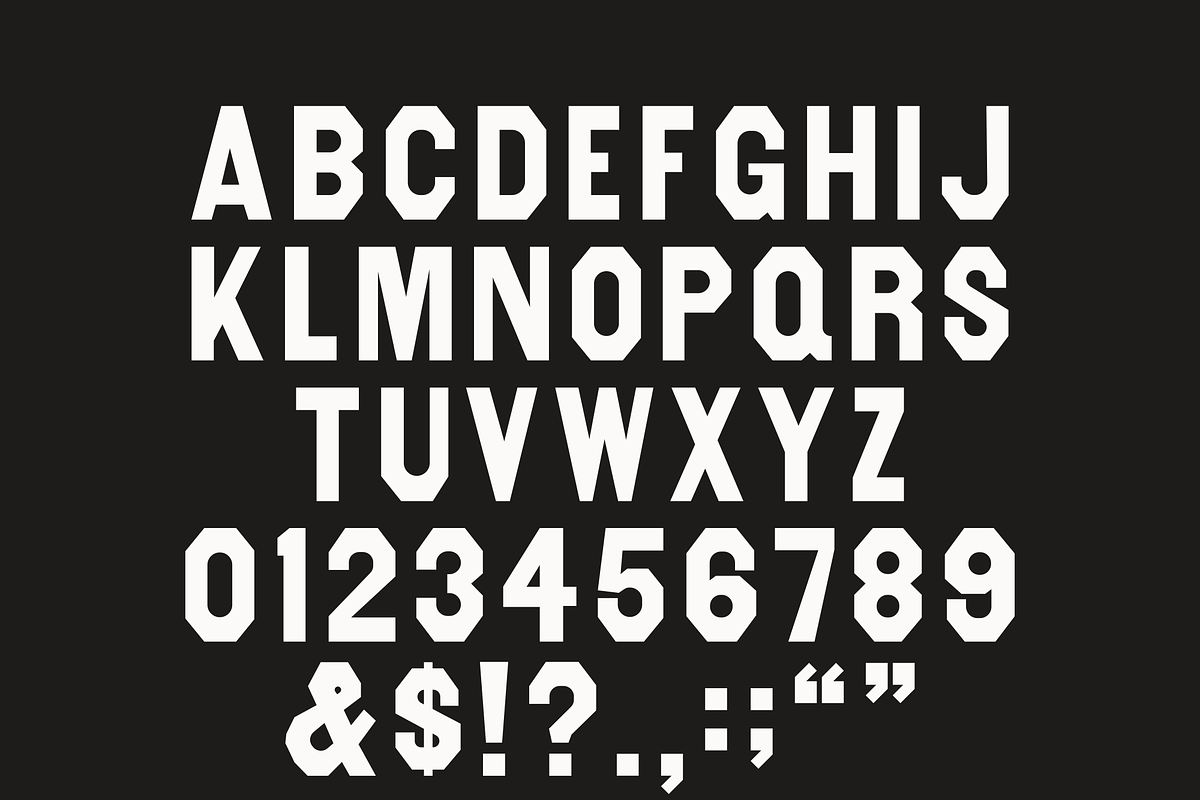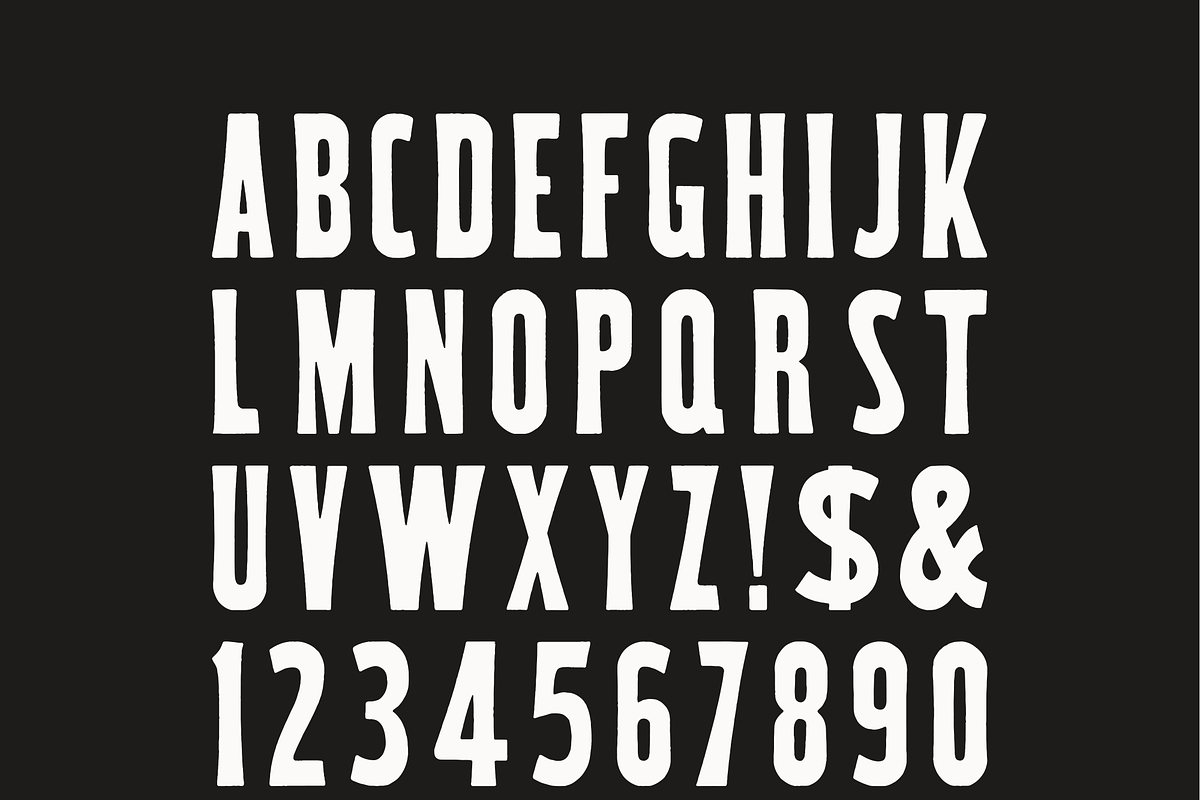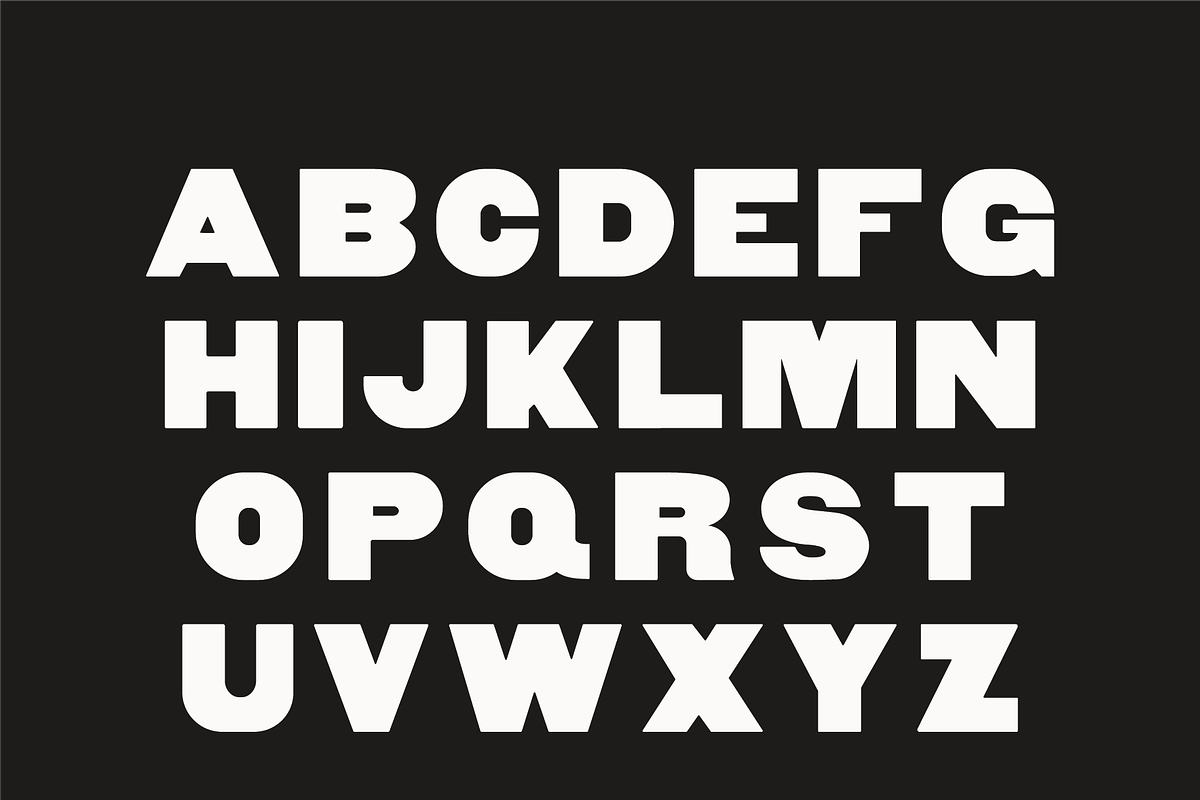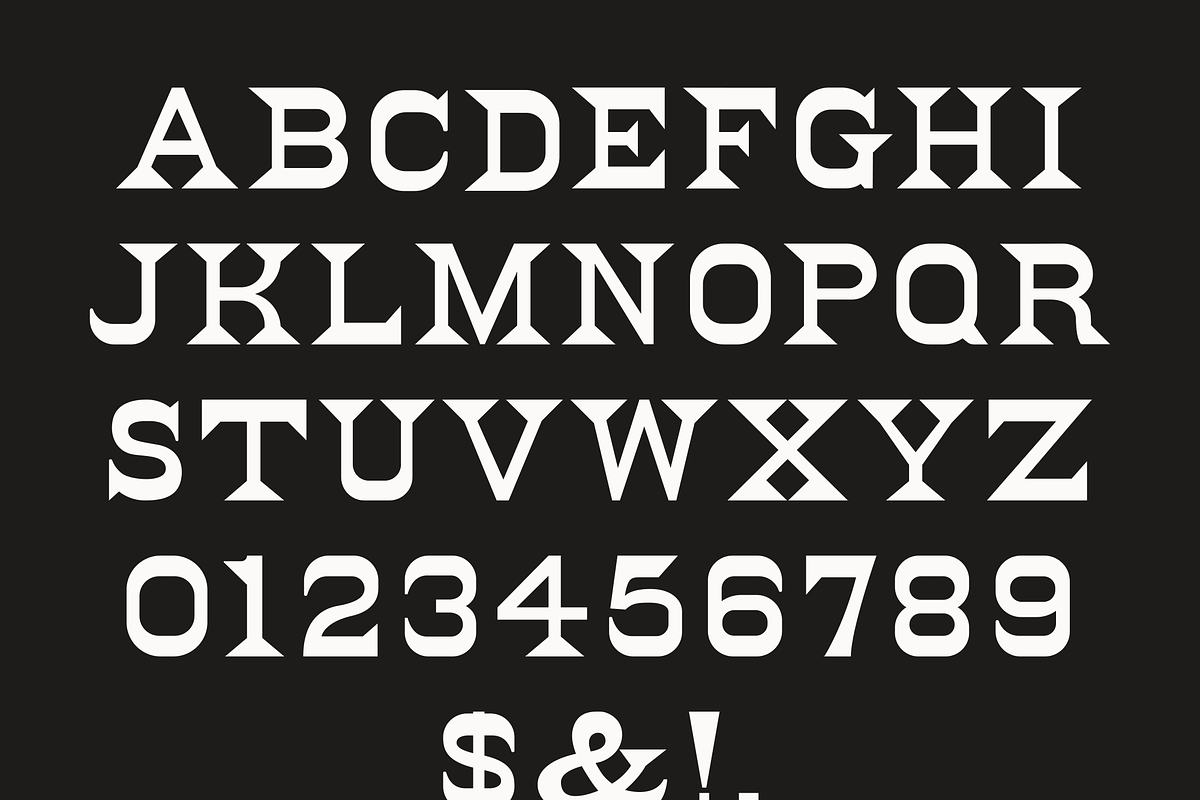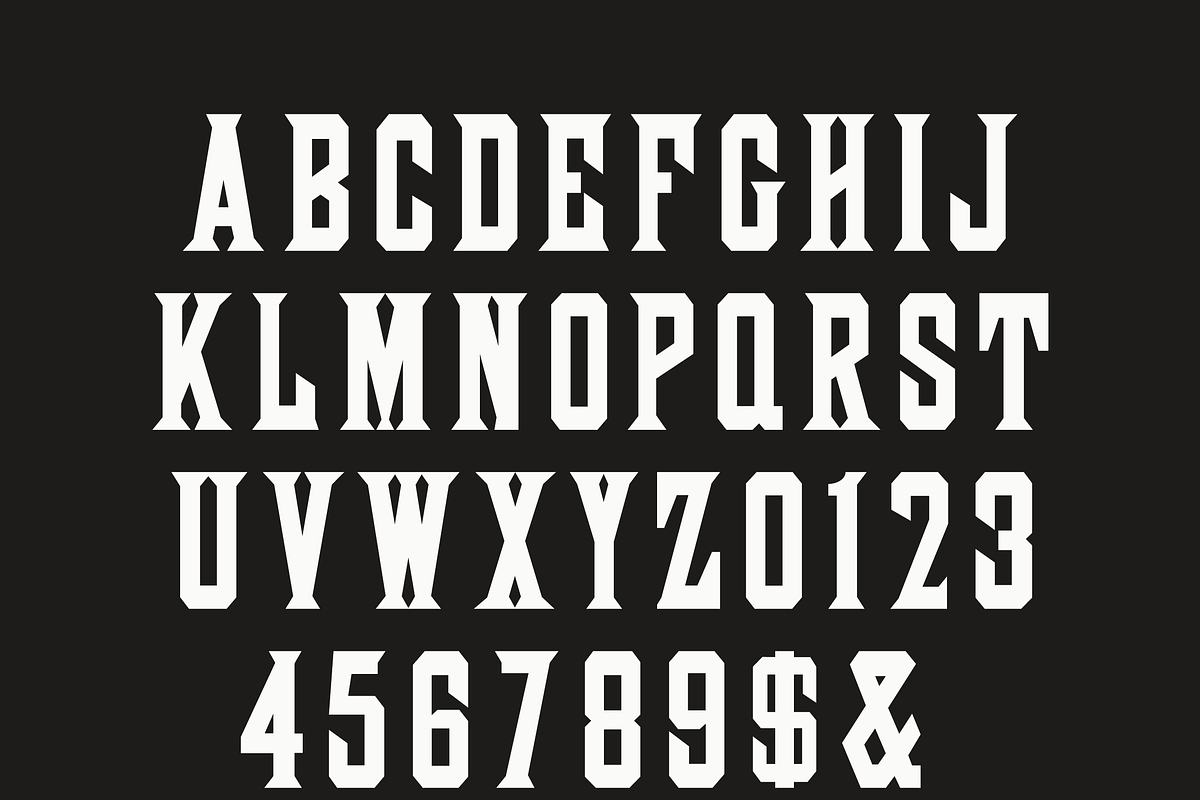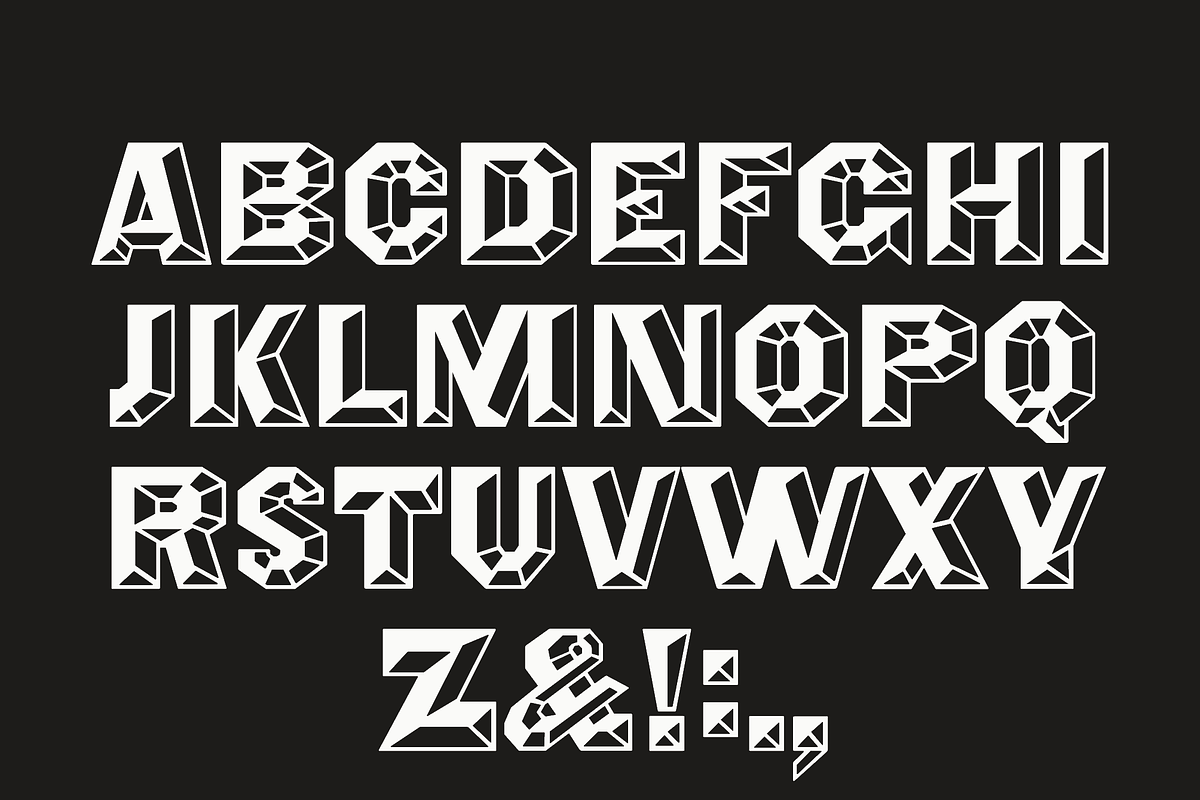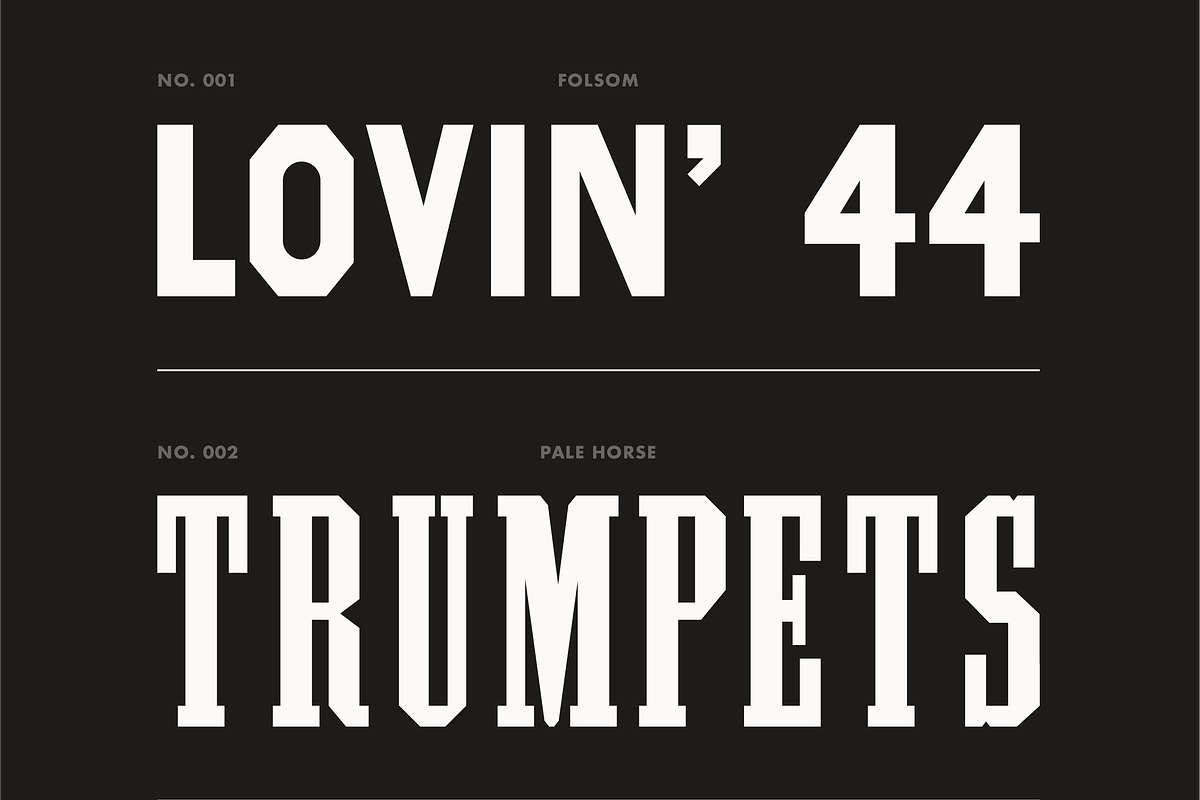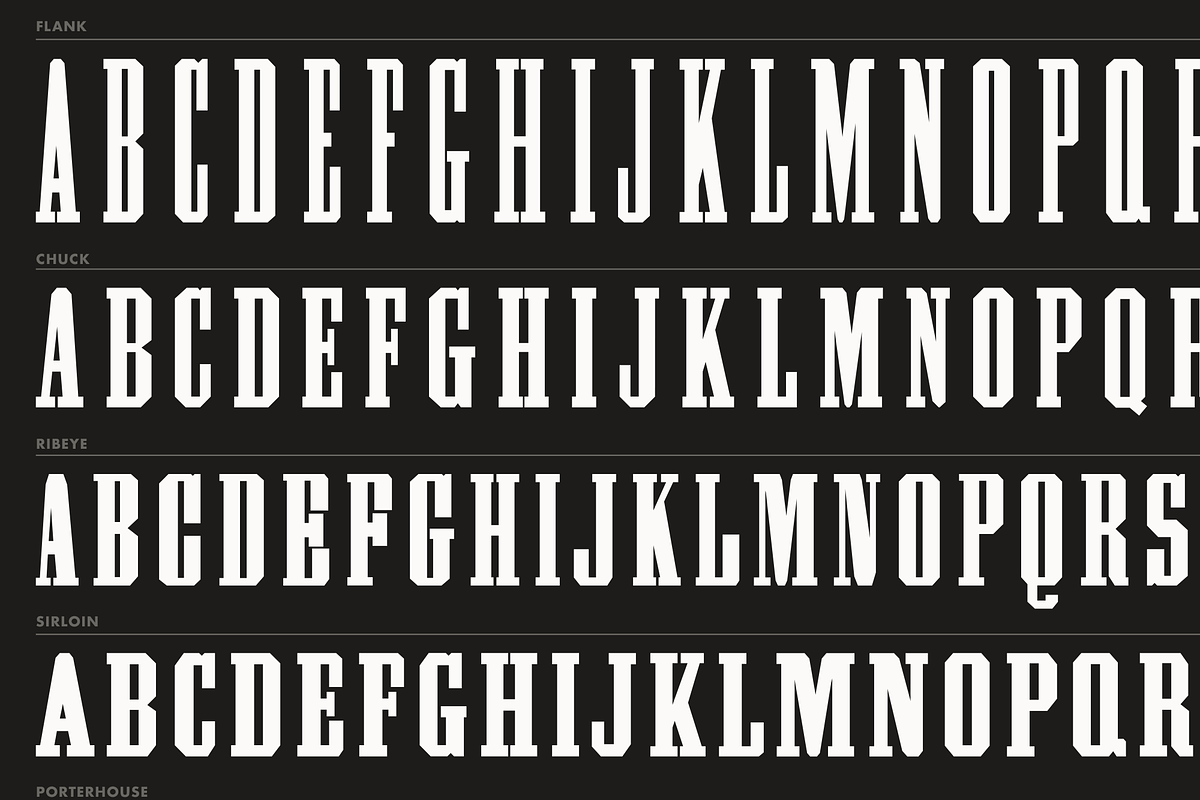
Wood Type Bundle
This is part of a series of reviving wood type. The typefaces are drawn from scans of wood type, therefore they are far from pixel perfect. Minor adjustments and liberties are made to each of the typefaces.